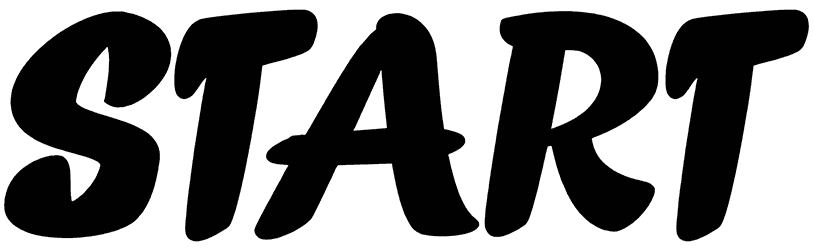
Start Font
As long as you have a modern and casual letterform, your design can convey a cool and stylish vibe to your followers. This script font, with its bulky characters, is able to make it happen. Start font can amp up your beach billboard, party invitation flyer, or so forth. Give it a chance and capture a lot of attention.